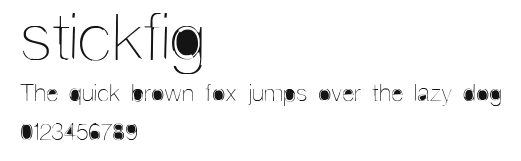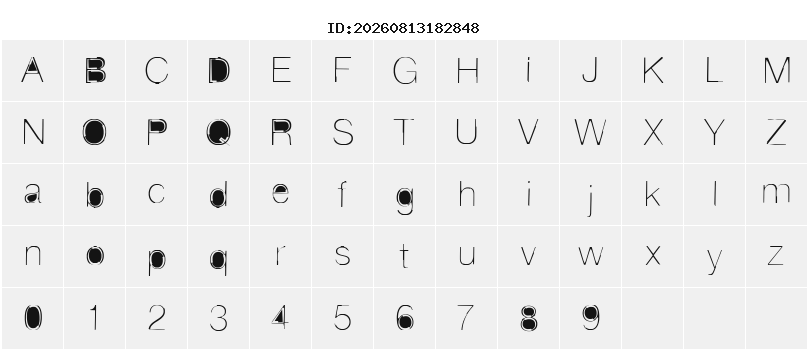
stickfig Preview
About stickfig.ttf
stickfig.ttf is a modern, elegant sans-serif font designed for ultimate readability and visual harmony. Perfect for branding, headlines, web design, and print materials.